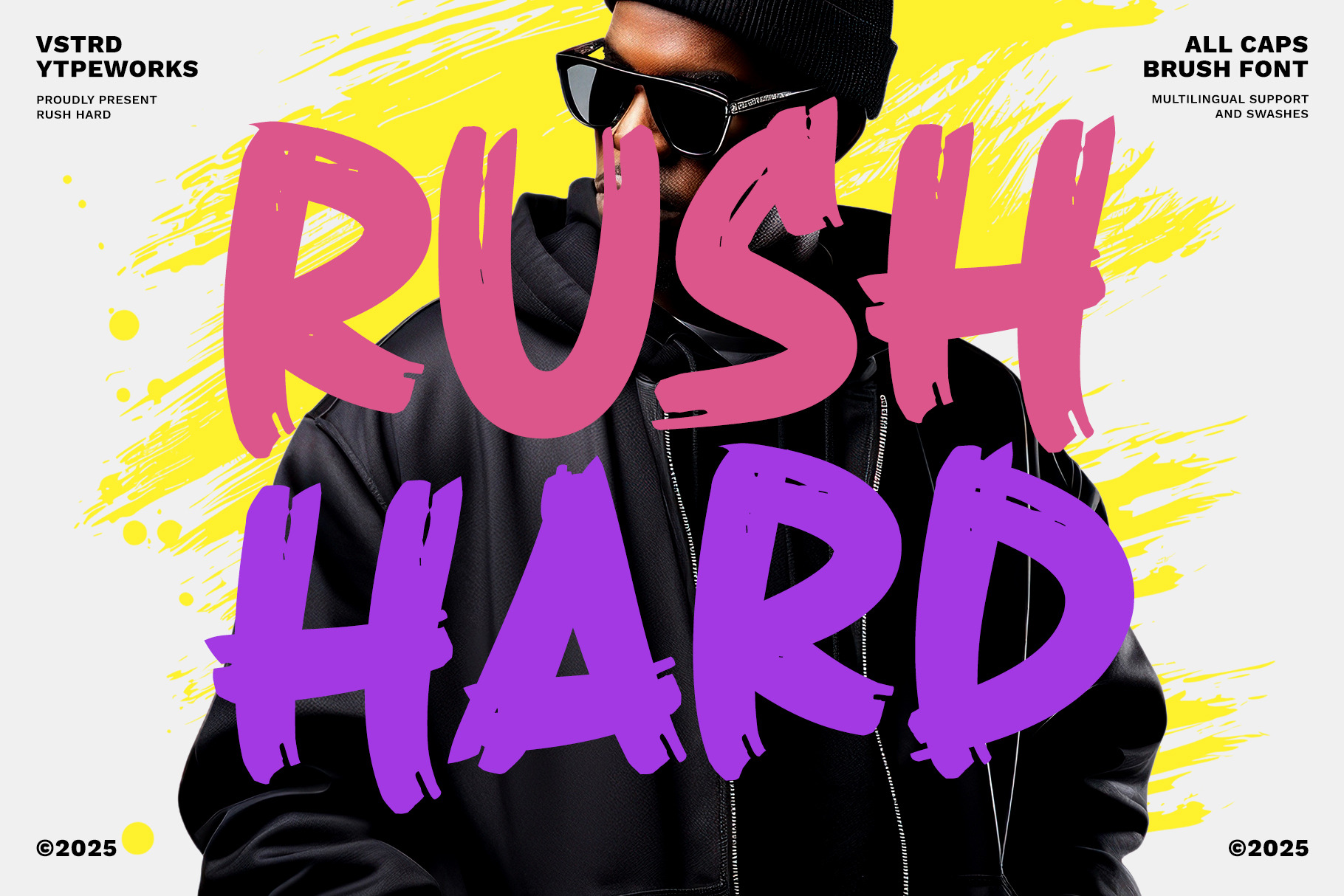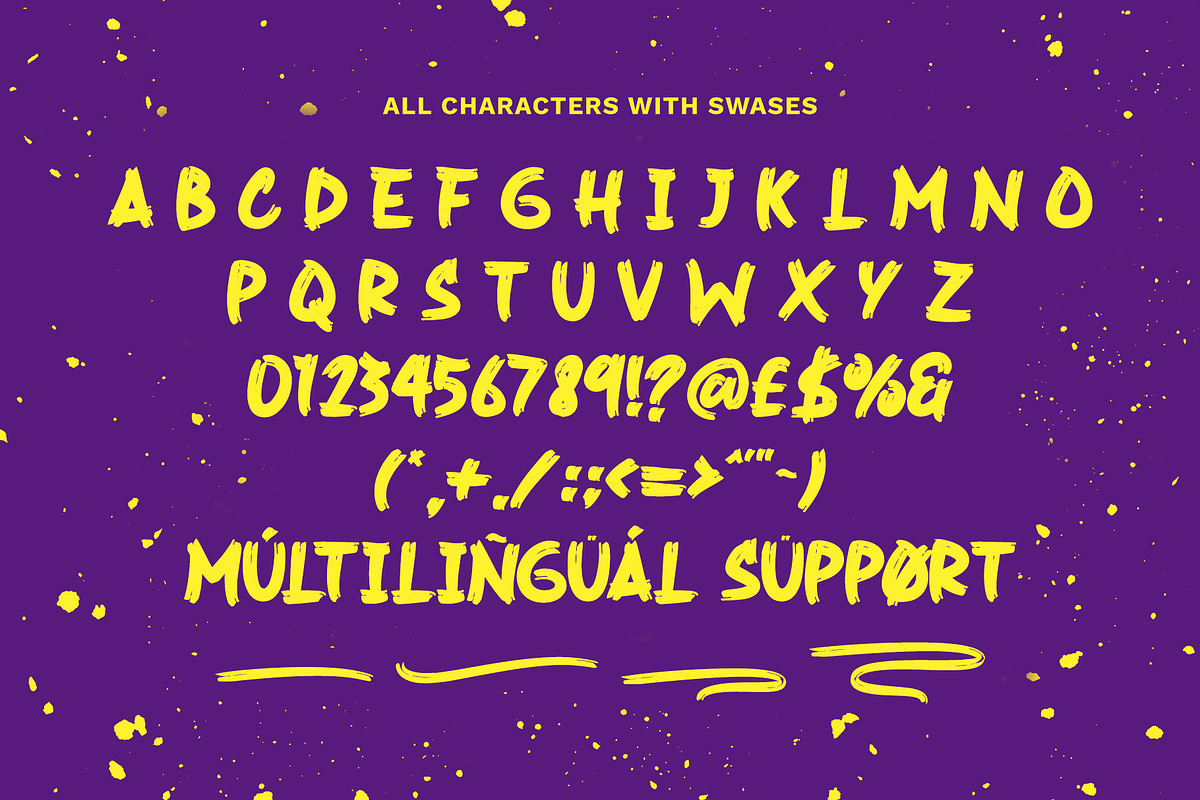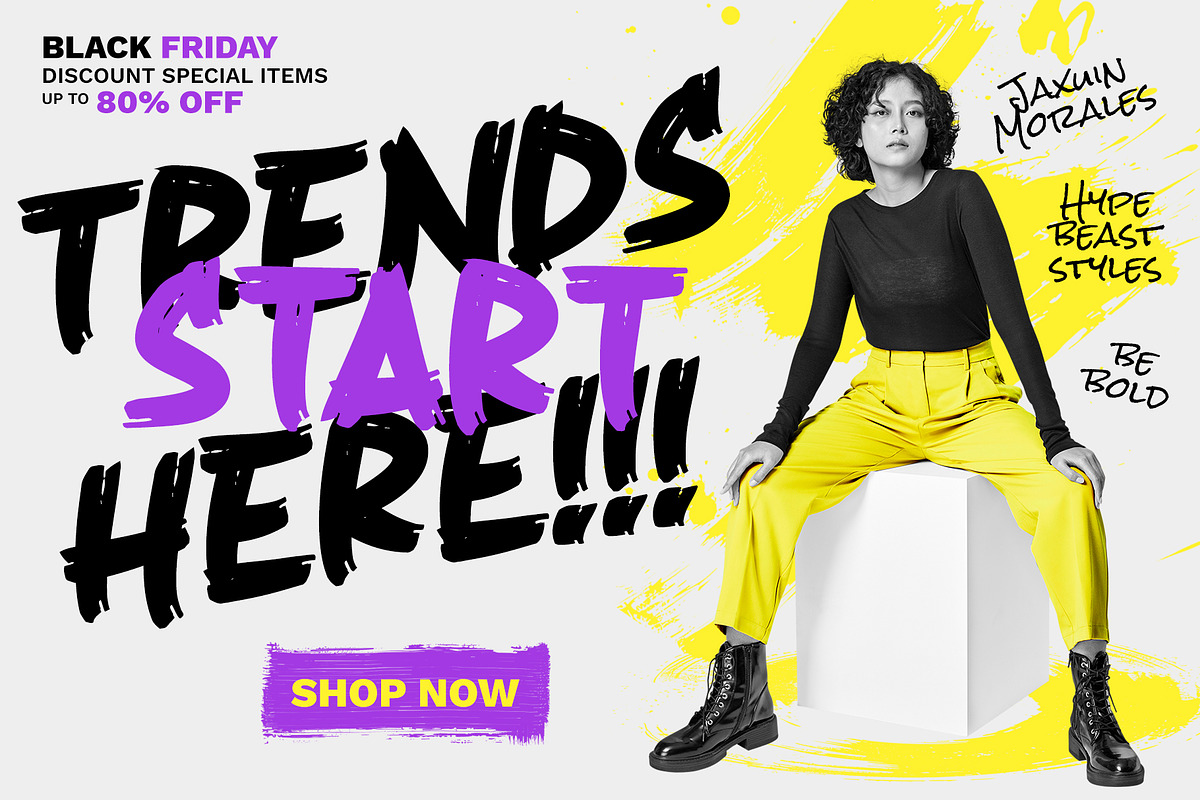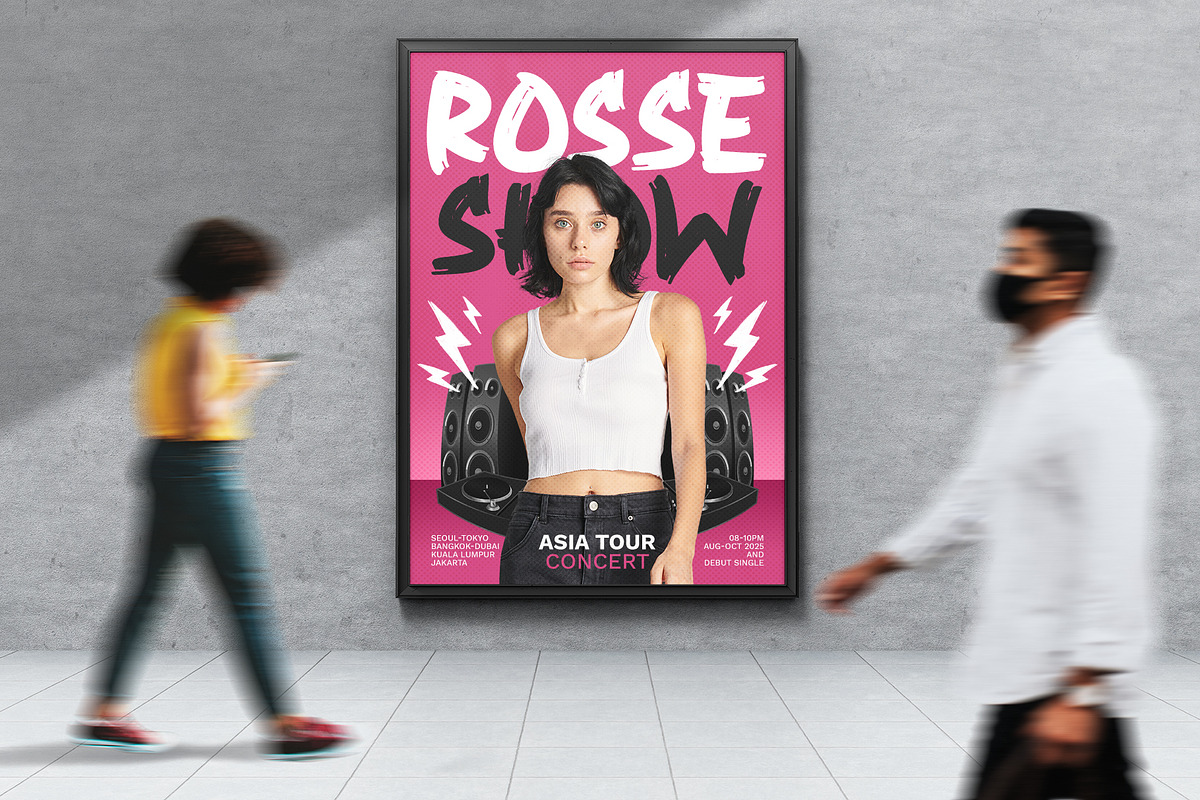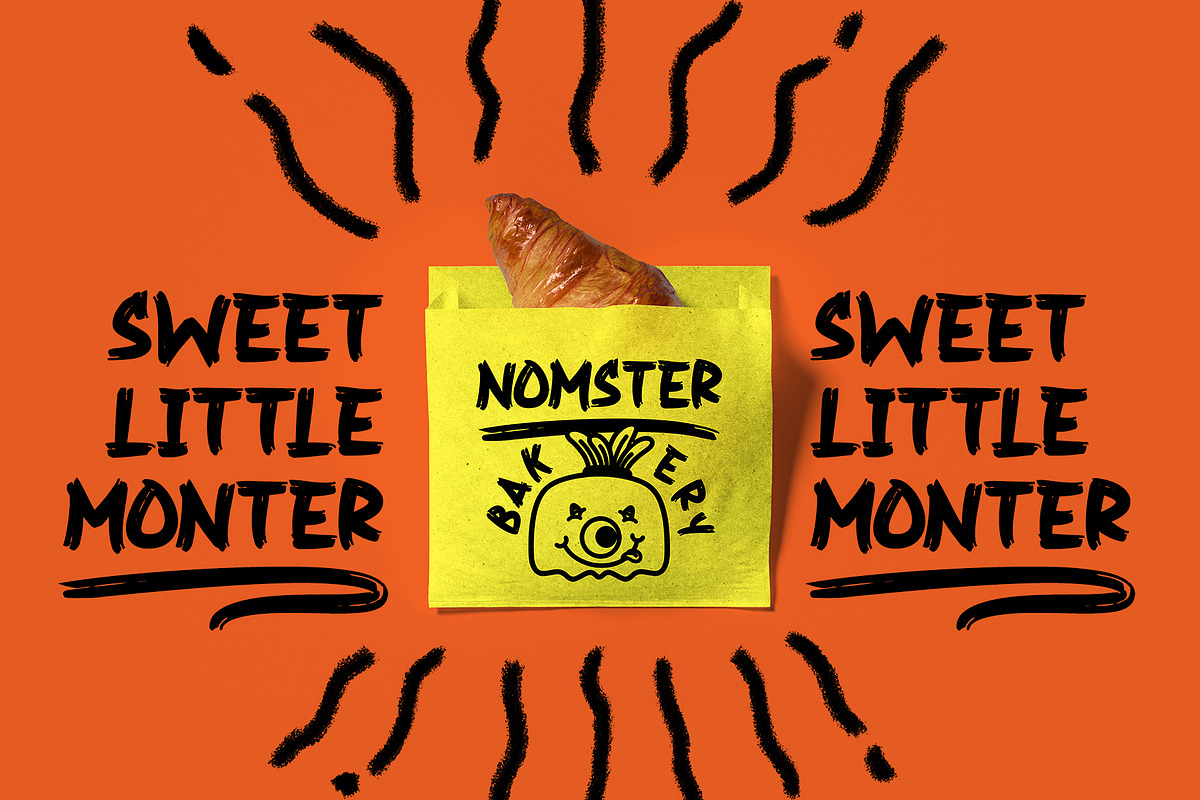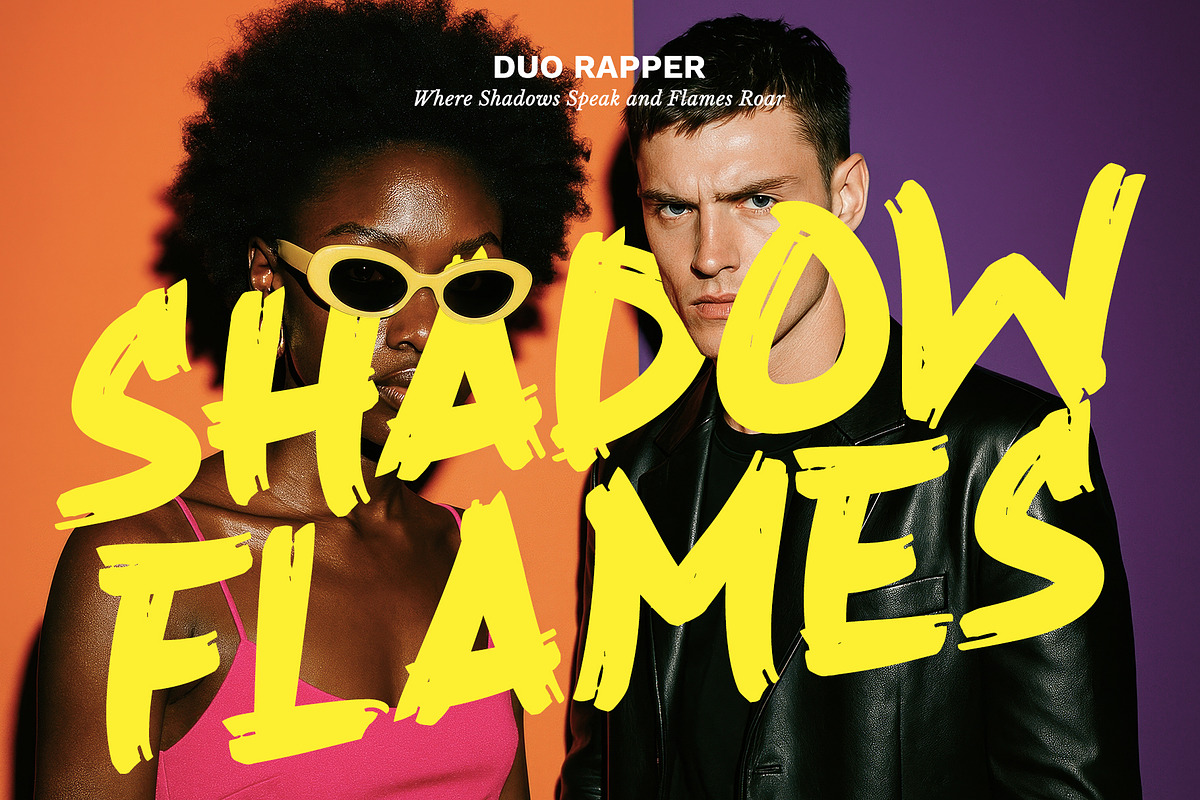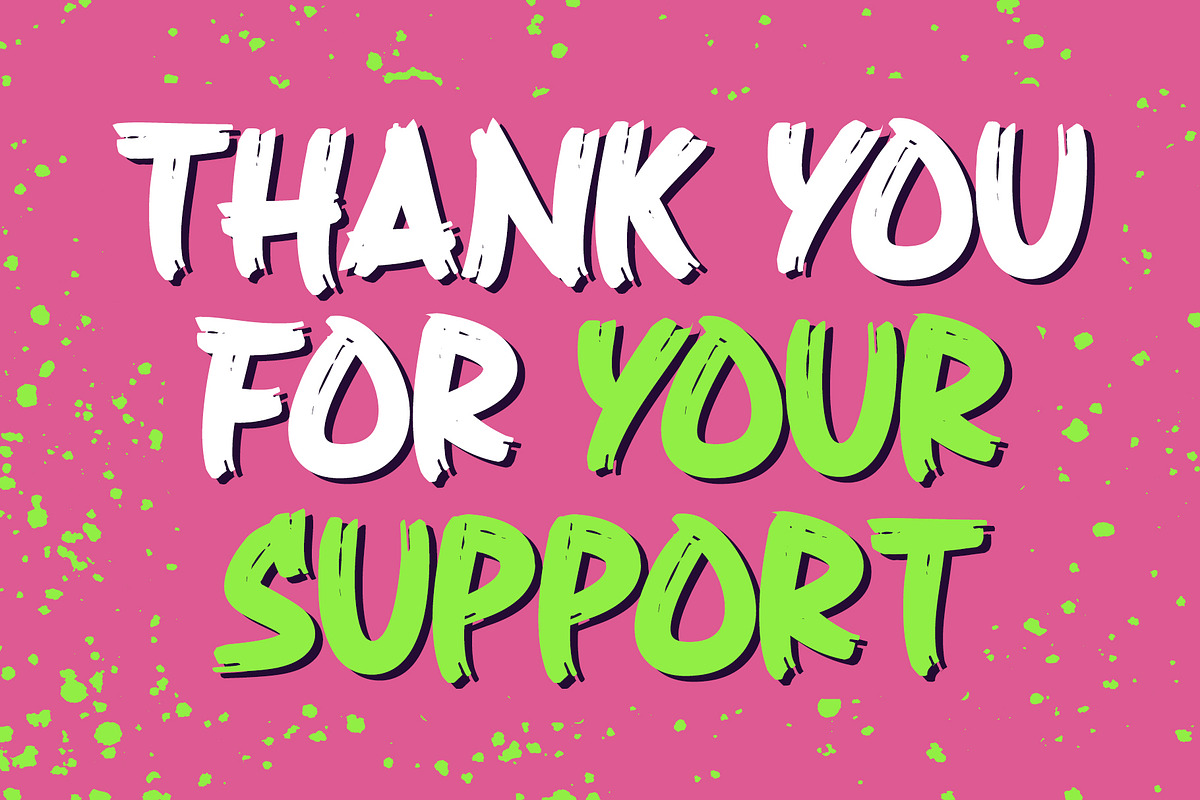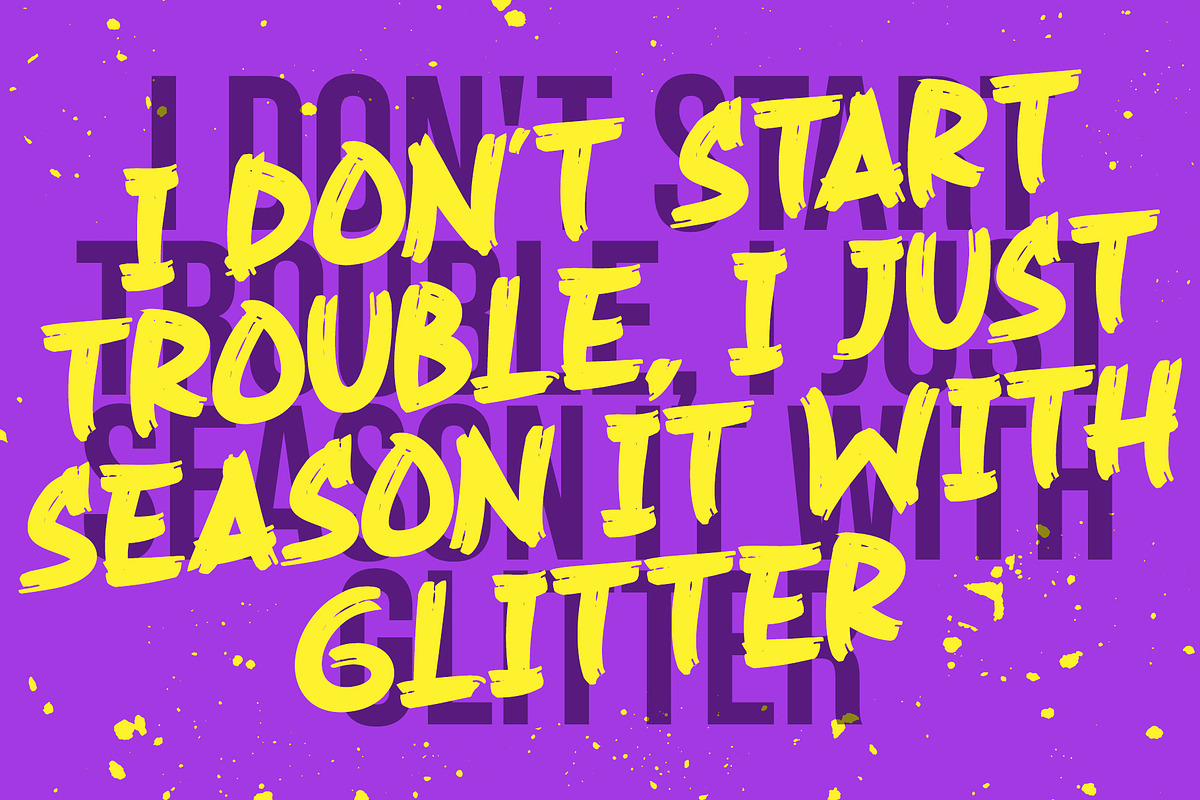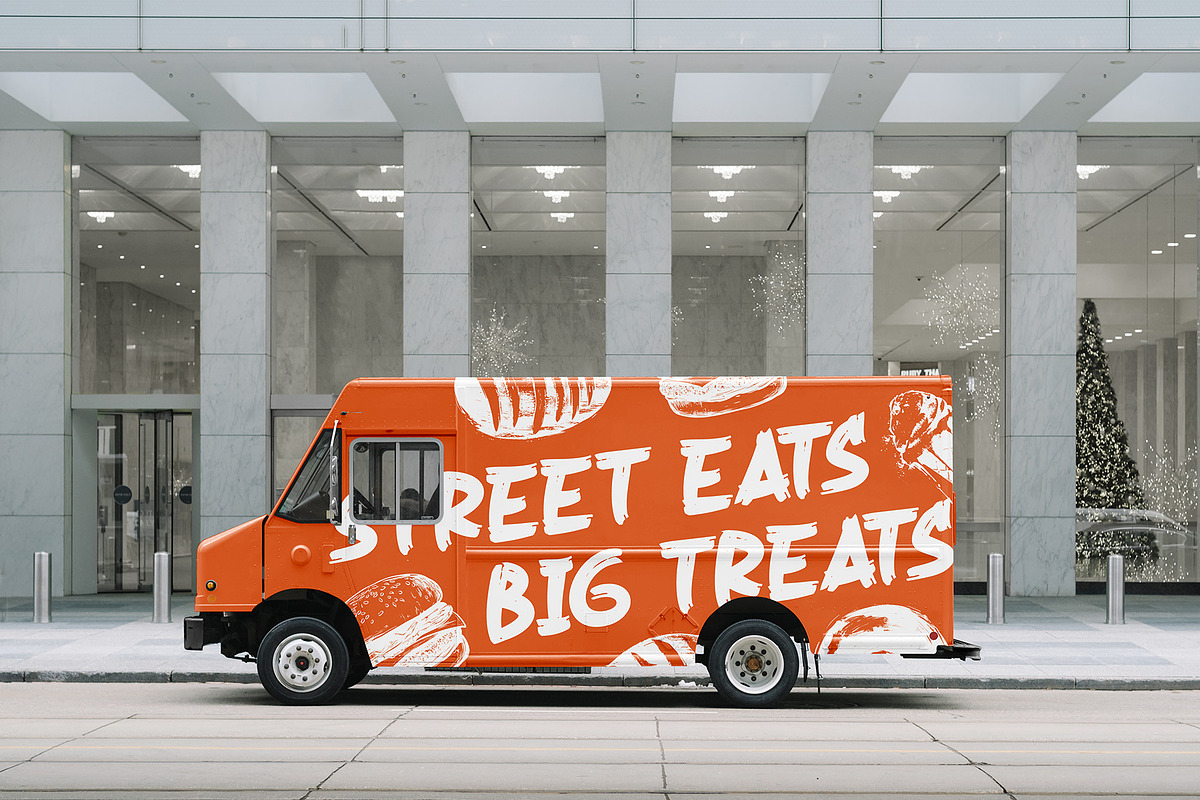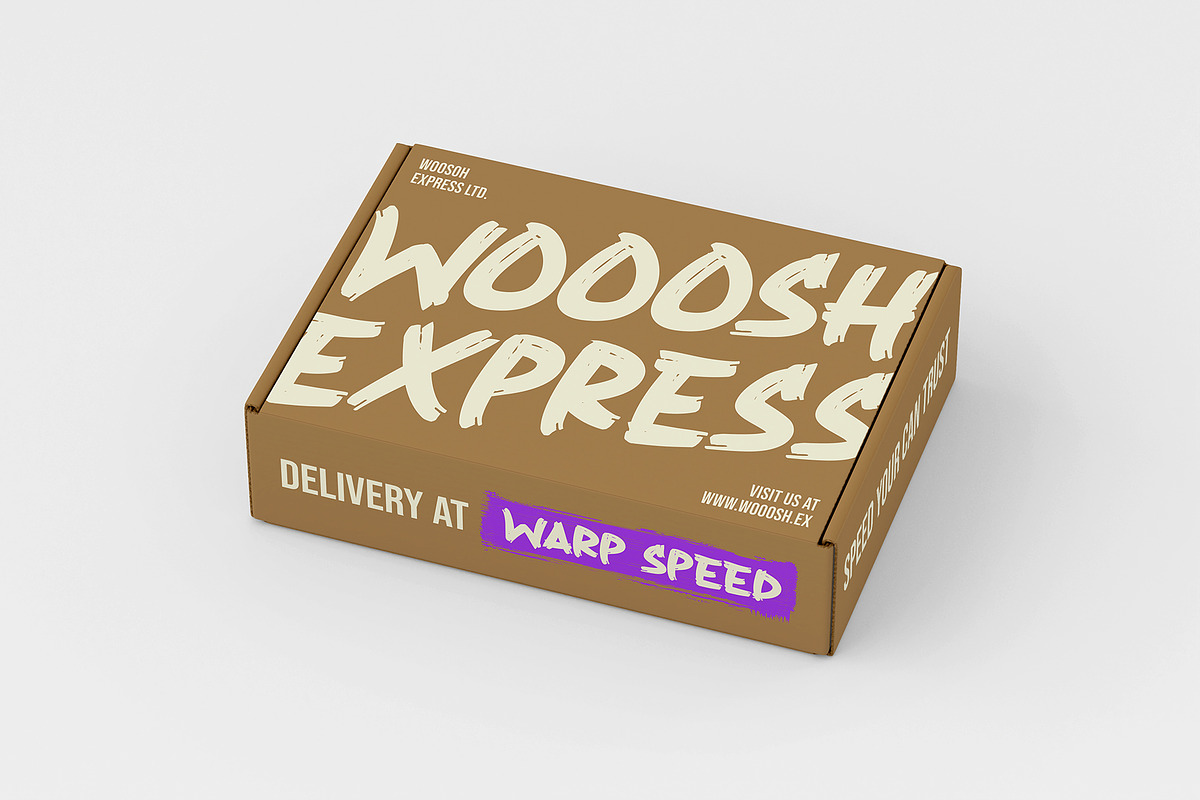
Rush Hard - Bold Brush Font
Bring energy and attitude to your designs with Rush Hard, a powerful bold brush font crafted from faux brush strokes. With its raw, and expressive strokes, this font is perfect for projects that demand a bold, rebellious edge.
Ideal for logos, food & beverage branding, promotional campaigns, video titles, product packaging, quotes, and eye-catching text overlays, Rush Hard adds a handcrafted, urban feel to any design.
- Perfect for high-impact branding and statement typography
- Versatile for both digital and print projects
- Adds an edgy, street-art-inspired vibe to your designs
Make a statement with Rush Hard, where bold strokes meet fearless creativity!
- All Caps Uppercase & Lowercase